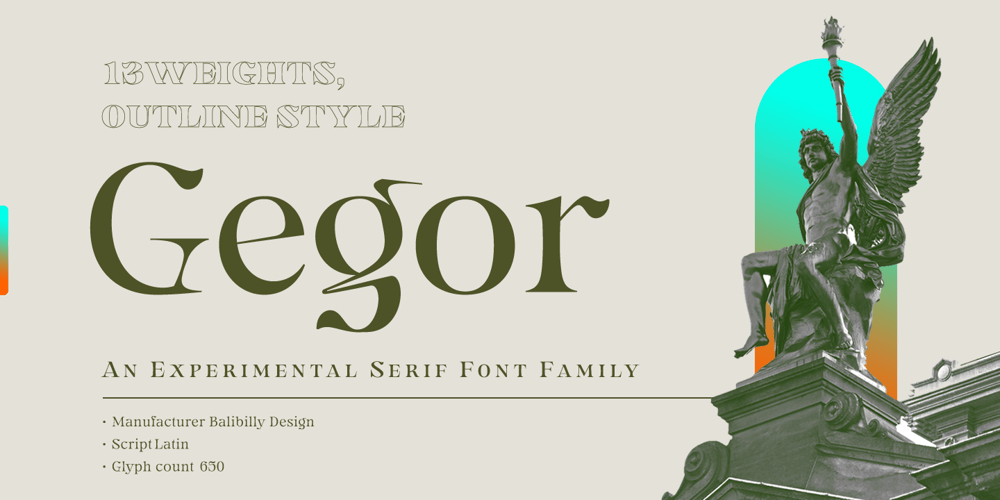
Gegor Font Family was designed by I Wayan Bill Natih and published by Balibilly Design. Gegor contains 14 styles and family package options. Say Hello to Gegor, an experimental serif display font.Gegor is freedom of our hand when creating the letterform without many references. We try to let the pen tool flow and dancing according to our imagination. The characters of this typeface are adopted from the letter “r”. She was born and influence each other. The simple shape on the shoulder are slightly pointy at a thick weight and curves at a thin weight have a big influence on other letters. The unique form of letter “r” takes us to further development to get achieve a distinct harmony as a display typefaces.If you look at the teaser images and get an idea, we are in line. Gegor consists of 14 families from thin to black, and 1 outline style in black weight equipped with discretionary ligatures, case-sensitive forms, ordinals, small capital, and fractions. Consists of multilingual support including Western European, Central European, and Southeastern European.Gegor is perfect for posters, logos, branding, magazines, websites, and more. Gegor will give a unique vibe to your works.Supports languages:Afrikaans, Albanian, Asu, Basque, Bemba, Bena, Bosnian, Catalan, Cebuano, Chiga, Colognian, Cornish, Corsican, Croatian, Czech, Danish, Dutch, English, Estonian, Faroese, Filipino, Finnish, French, Friulian, Galician, Ganda, German, Gusii, Hungarian, Icelandic, Ido, Inari Sami, Indonesian, Interlingua, Irish, Italian, Javanese, Jju, Jola-Fonyi, Kabuverdianu, Kalaallisut, Kalenjin, Kinyarwanda, Kurdish, Latvian, Lithuanian, Lojban, Low German, Lower Sorbian, Luo, Luxembourgish, Luyia, Machame, Makhuwa-Meetto, Makonde, Malagasy, Malay, Maltese, Manx, Maori, Morisyen, North Ndebele, Northern Sami, Northern Sotho, Norwegian Bokmål, Norwegian Nynorsk, Nyanja, Nyankole, Occitan, Oromo, Polish, Portuguese, Romanian, Romansh, Rombo, Rundi, Rwa, Samburu, Sango, Sangu, Sardinian, Scottish Gaelic, Sena, Shambala, Shona, Slovak, Slovenian, Soga, Somali, South Ndebele, Southern Sotho, Spanish, Swahili, Swati, Swedish, Swiss German, Taita, Taroko, Teso, Tsonga, Tswana, Turkish, Turkmen, Upper Sorbian, Vunjo, Walloon, Welsh, Western Frisian, Wolof, Xhosa, Zulu